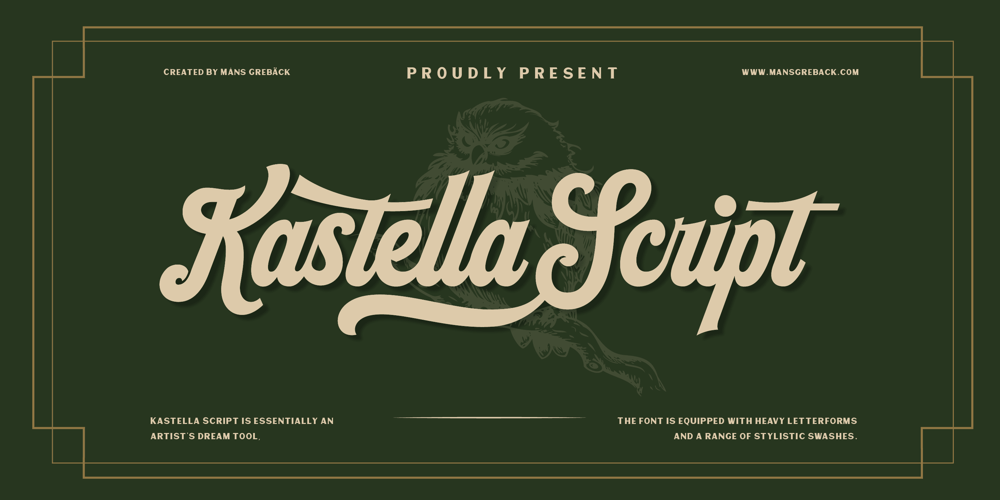
Kastella Script Font Family was designed by Måns Grebäck and published by Mans Greback. Kastella Script contains 3 styles and family package options. Kastella Script is essentially an artist’s dream tool. It feels as if you’re not just typing but crafting a visual narrative, almost like putting the finishing touches on a piece of design art. It’s not about the text; it’s about the story it tells. The font is equipped with heavy letterforms and a range of stylistic swashes, providing a versatile toolset for modern design projects, from branding to editorial layouts. Use underscore _ to make an underline. Example: Bea_utyUse multiple underscore for different swashes. Example: Super____humanKastella Script is built with advanced OpenType functionality and has a guaranteed top-notch quality, containing stylistic and contextual alternates, ligatures, and more features; all to give you full control and customizability. It has extensive lingual support, covering all Latin-based languages, and includes all the characters and symbols you’ll ever need.Behind this exquisite creation is Mans Greback. Known for pushing the boundaries of type design, Greback has ventured into the intricacies of aesthetic diversity with Kastella Script. His portfolio is a testament to his versatility and daring, turning simple alphabets into powerful visual narratives.